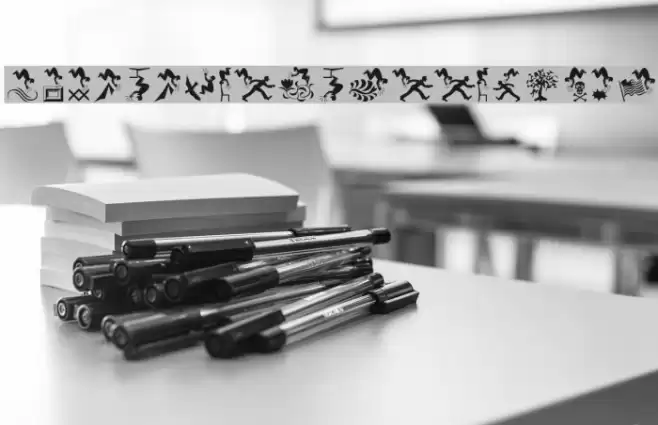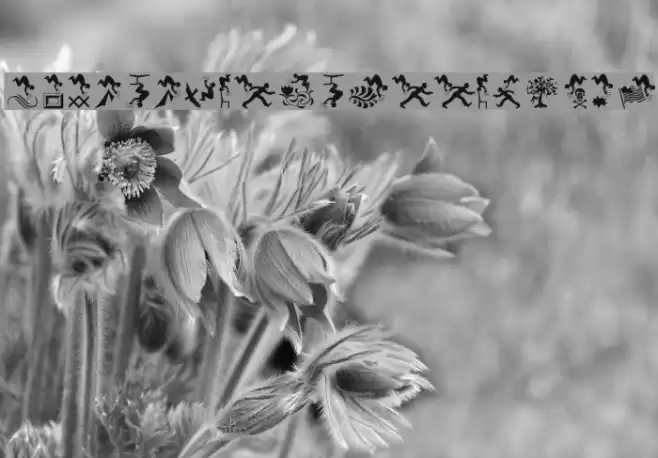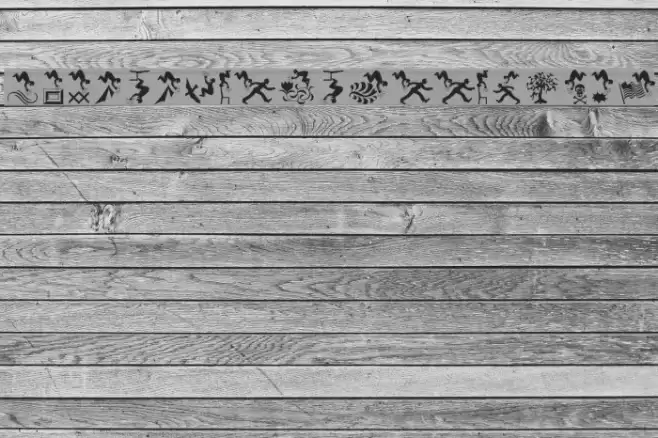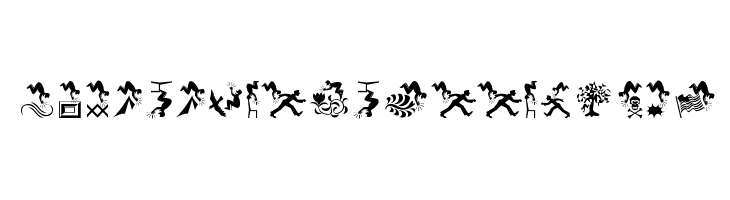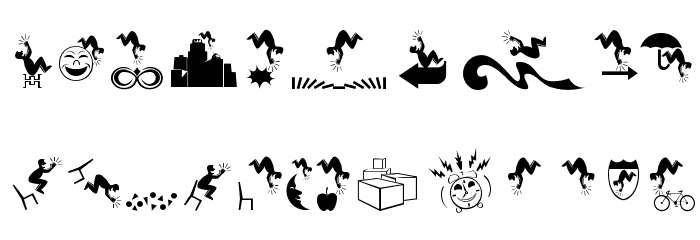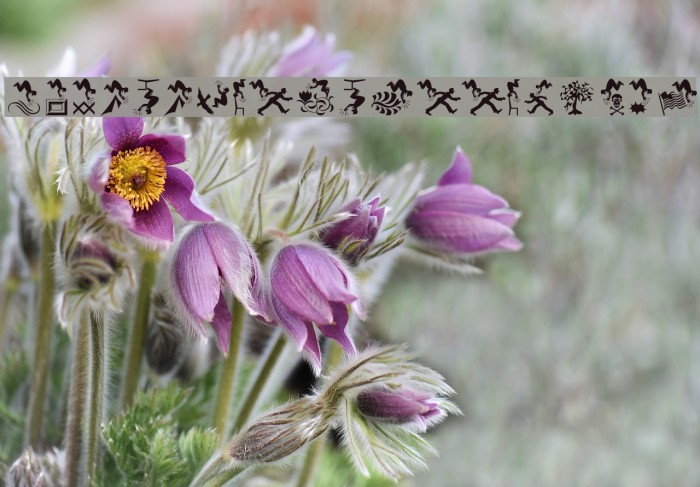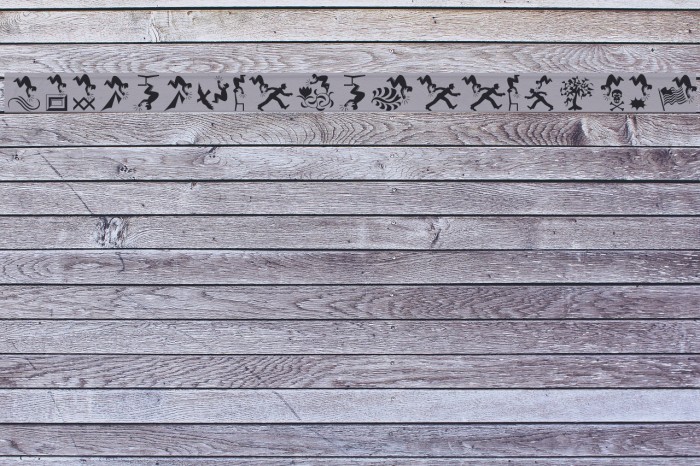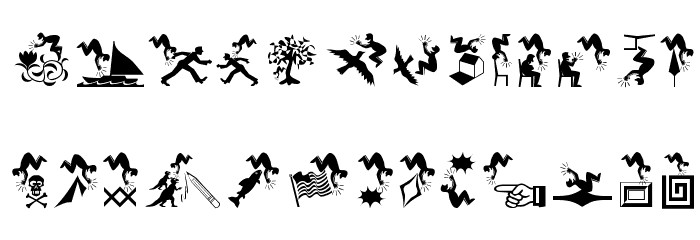
TypologicalAccidents Font
TypologicalAccidents Description
This collection features a series of whimsical and playful pictograms that incorporate a jester-like character in various humorous and dynamic poses. Each symbol is creatively designed, blending elements of surprise and motion, often interacting with other objects or symbols. The style is bold and graphic, with a strong emphasis on black and white contrast, making each icon stand out distinctly. The characters are depicted in exaggerated, animated forms, adding a sense of fun and energy. This set is ideal for projects that require a light-hearted and engaging visual element.
A playful set of pictograms featuring a jester character in dynamic poses from Uncategorized fonts.
- Proposed Projects: Ideal for children's books, playful branding, educational materials, or any project needing a whimsical touch.
- Overall Style: Whimsical, Playful
- Use Case: Logos, Illustrations, Educational materials